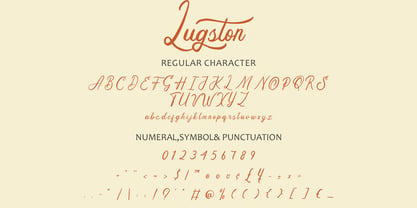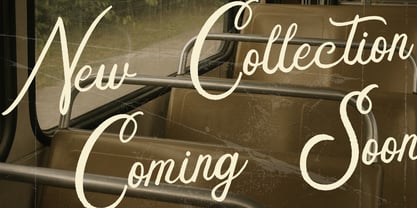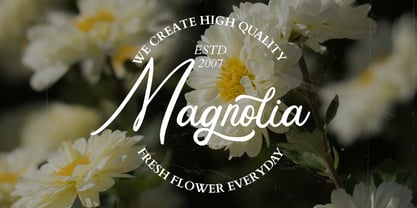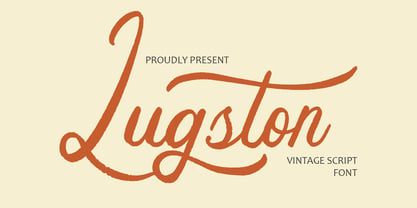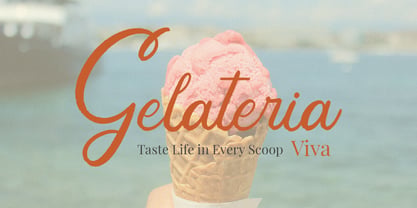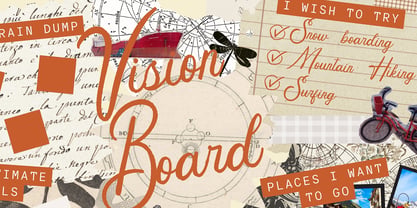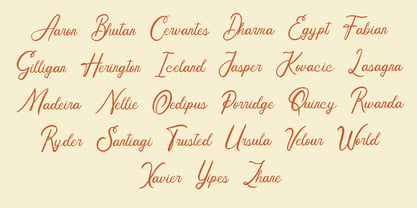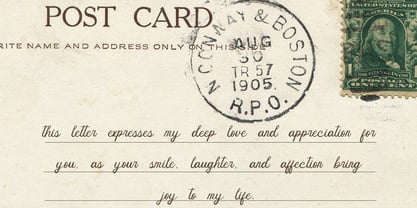
Lugston
by Arendxstudio
The Lugston Font Family was designed by Asep Rendi and published by Arendxstudio. Lugston contains 1 styles. More about this family
Description:
Lugston is a timeless vintage script font that captures the warmth and elegance of classic lettering. Perfect for logos, signage, packaging, and creative projects, it brings a nostalgic yet refined feel to your designs, making them stand out with character and sophistication.
Features : Uppercase and lowercase characters
Numerals and Punctuation
Accents (Supports Multilingual Characters)
Designers: Asep Rendi
Foundry: Arendxstudio